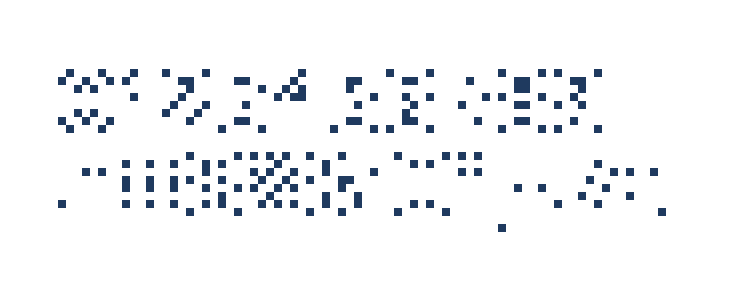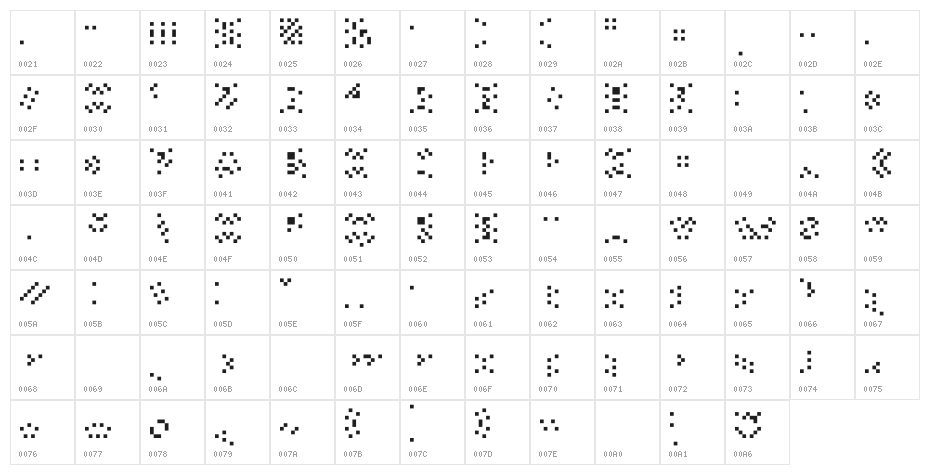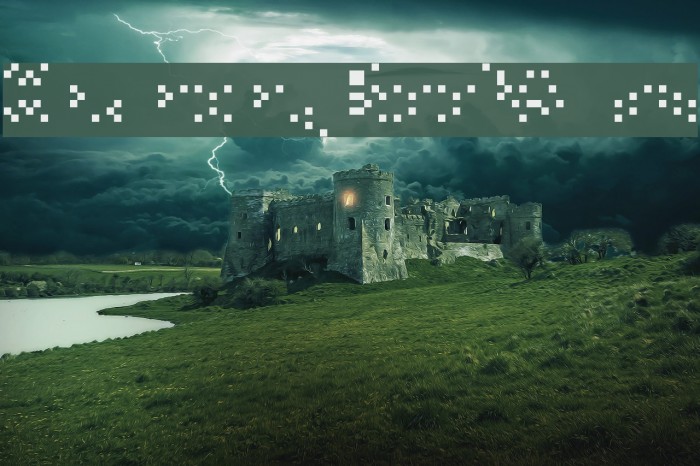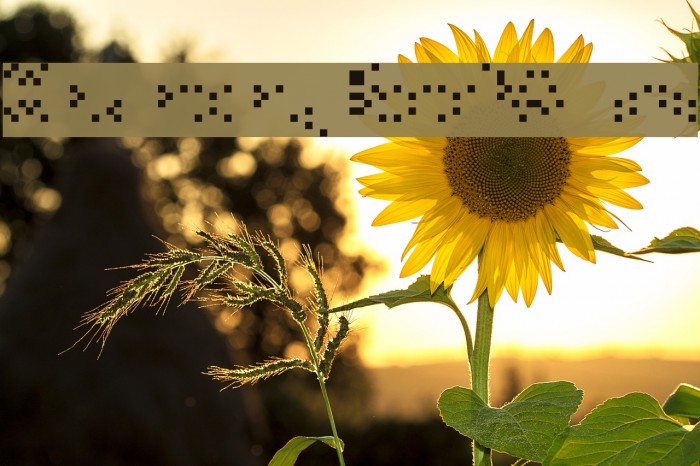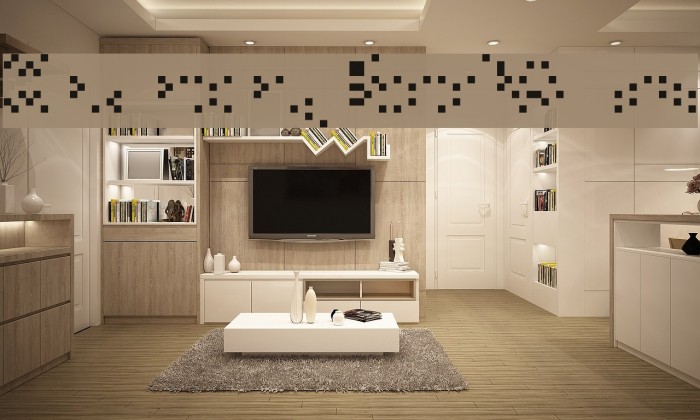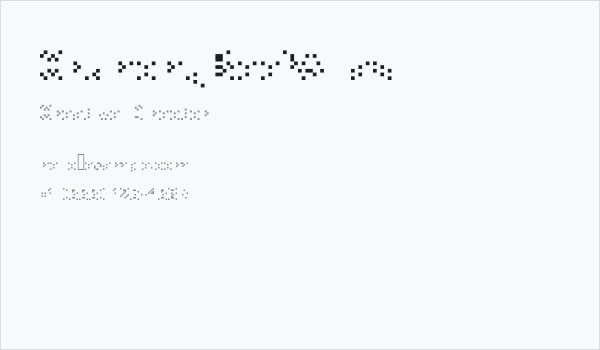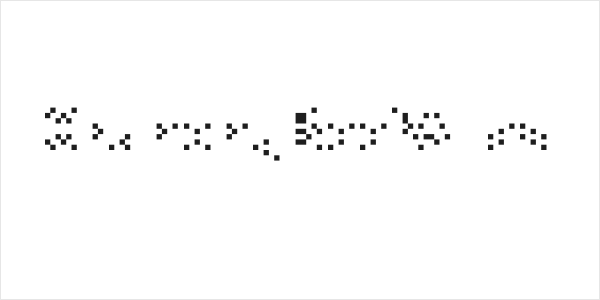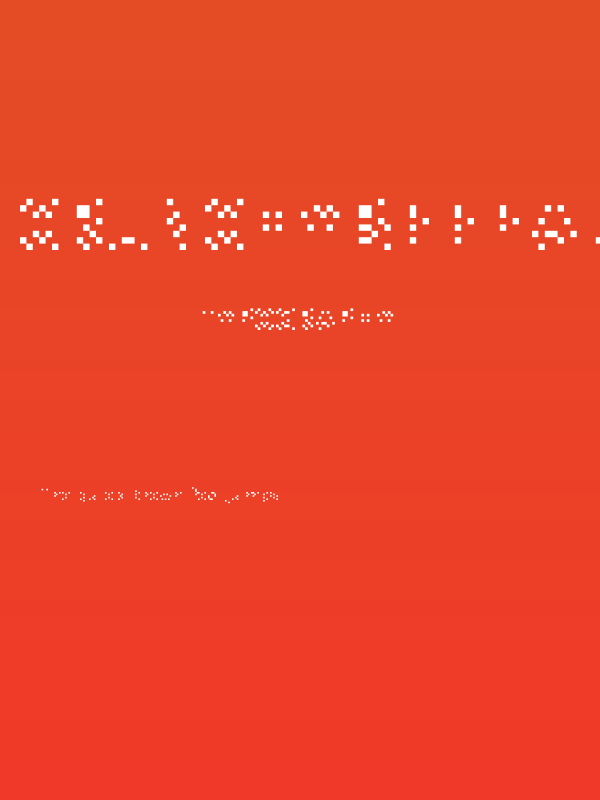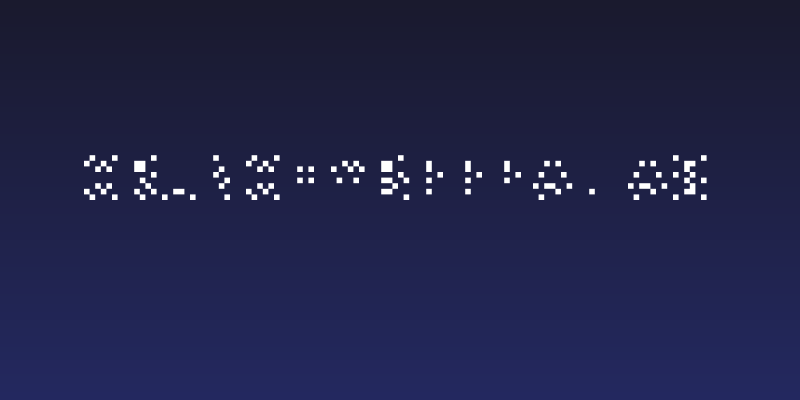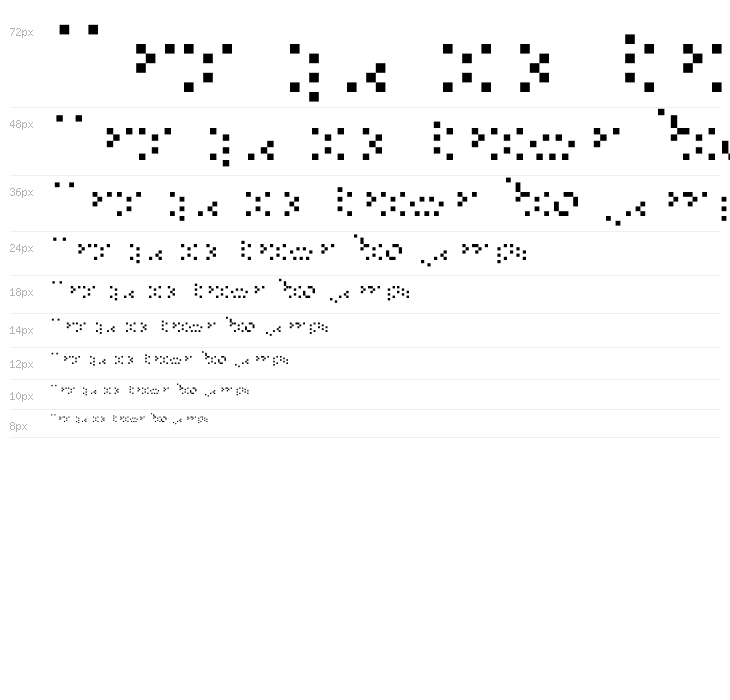
CrunchyBeefAlias Font
CrunchyBeefAlias Description
This font exhibits a pixelated, blocky style reminiscent of early digital displays or retro video games. Each character is composed of small, square pixels that create a distinct, grid-like appearance. The uppercase and lowercase letters maintain a consistent height, contributing to a uniform look across the text. The numerals and special characters follow the same pixelated design, ensuring cohesion throughout. This font's unique aesthetic is both nostalgic and modern, making it suitable for projects that aim to evoke a sense of digital nostalgia or a tech-inspired theme.
CRUNCHYBEEFALIAS UPPERCASE
CRUNCHYBEEFALIAS LOWERCASE
CRUNCHYBEEFALIAS OTHER CHARS
| Overall Style | Retro, Digital |
| Use Case | Logos, Posters, Video Games |
| Proposed Projects | Ideal for video game design, tech-themed posters, digital art projects, or any creative work that seeks a retro digital look. |